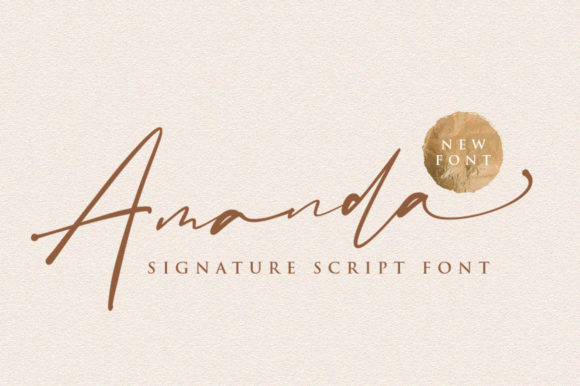
The Amanda Font: A Relaxed Handwritten Gem for Your Designs
Have you ever been in the middle of a design project, and suddenly, you’re stuck on finding the perfect font? I recall a wedding invitation project where I struggled to find a font that felt both elegant and casual. That’s when I stumbled upon the Amanda font, and it instantly became my go-to choice. In this article, we’ll dive into what makes Amanda a unique addition to your font library and how you can make the most of its features.
A Personal Review of Amanda Font
I’ve had the pleasure of working with the Amanda font on several projects, and here’s what I think:
• ✨ Unique and relaxed handwritten feel that adds a personal touch to any design
• 💕 Perfect for designs that require a friendly, approachable tone
While Amanda is an excellent font, there are a few things to keep in mind:
• 🤔 Limited availability of stylistic alternates, which might not offer as much versatility for some designers
• ⚠️ May not be the best fit for very formal or corporate designs, as it leans more towards casual and creative projects
Exploring Alternatives: Similar Fonts to Amanda
If you love Amanda but want to explore other options, here are a few similar fonts:
• Lobster – A more elegant, cursive option perfect for formal events or luxury brands
• Pacifico – Offers a relaxed, beachy vibe ideal for casual or summer-themed designs
• Great Vibes – A script font with a fun, energetic feel suitable for creative projects and social media graphics
• Carolyna Pro – A versatile script with a touch of elegance, great for both formal and semi-formal designs
The Story Behind Amanda Font
While the exact origins of Amanda might be unclear, it’s evident that the designer aimed to create a font that feels both personal and sophisticated. The relaxed, flowing lines of Amanda suggest a desire to bring a sense of warmth and approachability to typography. Whether used for wedding invitations, business cards, or social media posts, Amanda brings a unique charm that’s hard to replicate with more traditional fonts.
What makes Amanda font unique? Amanda’s unique blend of elegance and relaxation makes it perfect for designs needing a personal touch.
Is Amanda suitable for body text? While Amanda is highly legible, it’s best used for headings or short paragraphs due to its decorative nature.
In conclusion, the Amanda font is a versatile and beautiful addition to any designer’s toolkit. Its unique blend of relaxation and elegance makes it perfect for a wide range of projects. By understanding its features and limitations, you can create stunning designs that stand out.